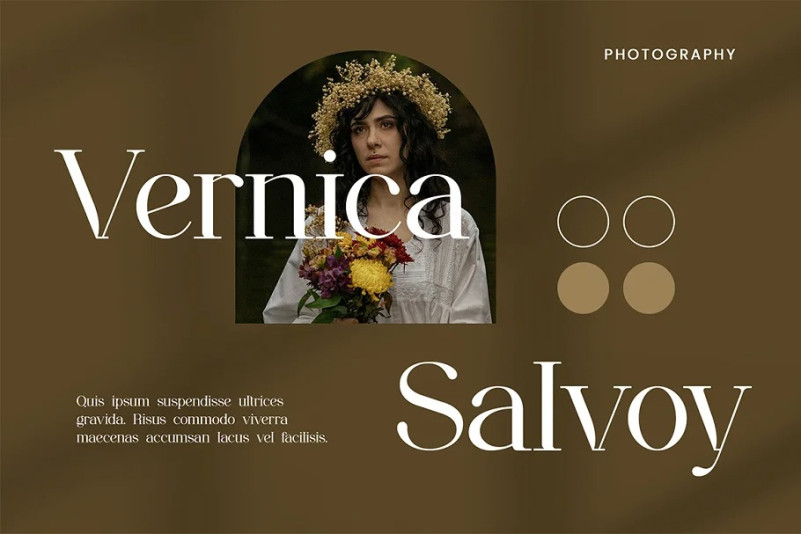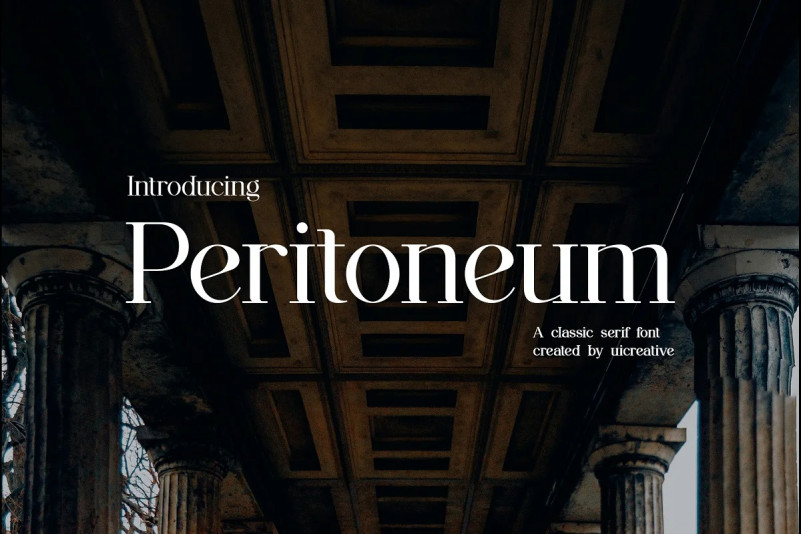
Peritoneum Font
Peritoneum Font – Clasiss Serif Font. Modern Serif font that feels beautiful classy, elegant, and modern. This font is ideally suited for a wide variety of projects, such as signature, stationery, logo, wedding, typography quotes, magazine or book covers, website headers, clothing, branding, packaging design, and more. Also, fashion-related branding or editorial design displays both masculine and feminine qualities.